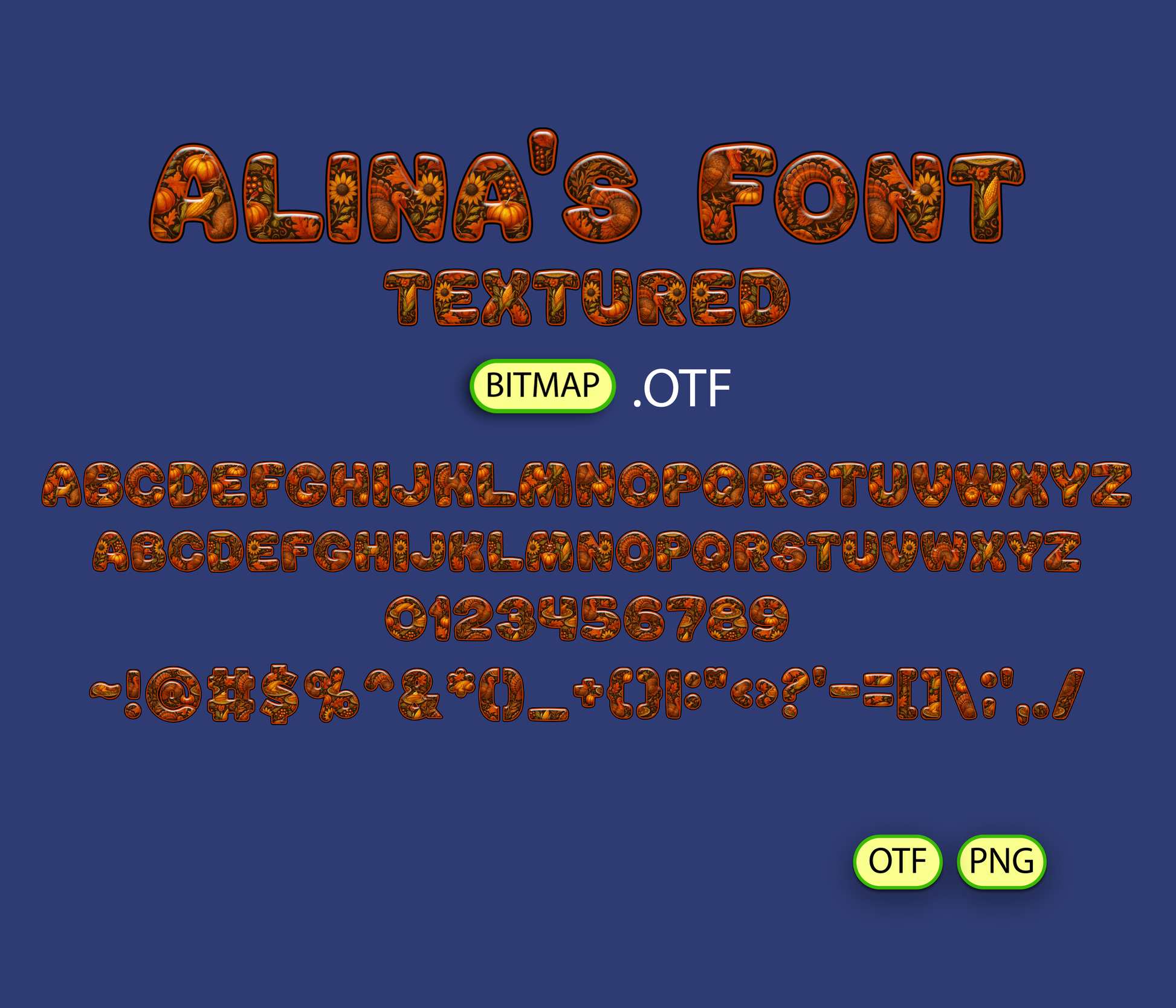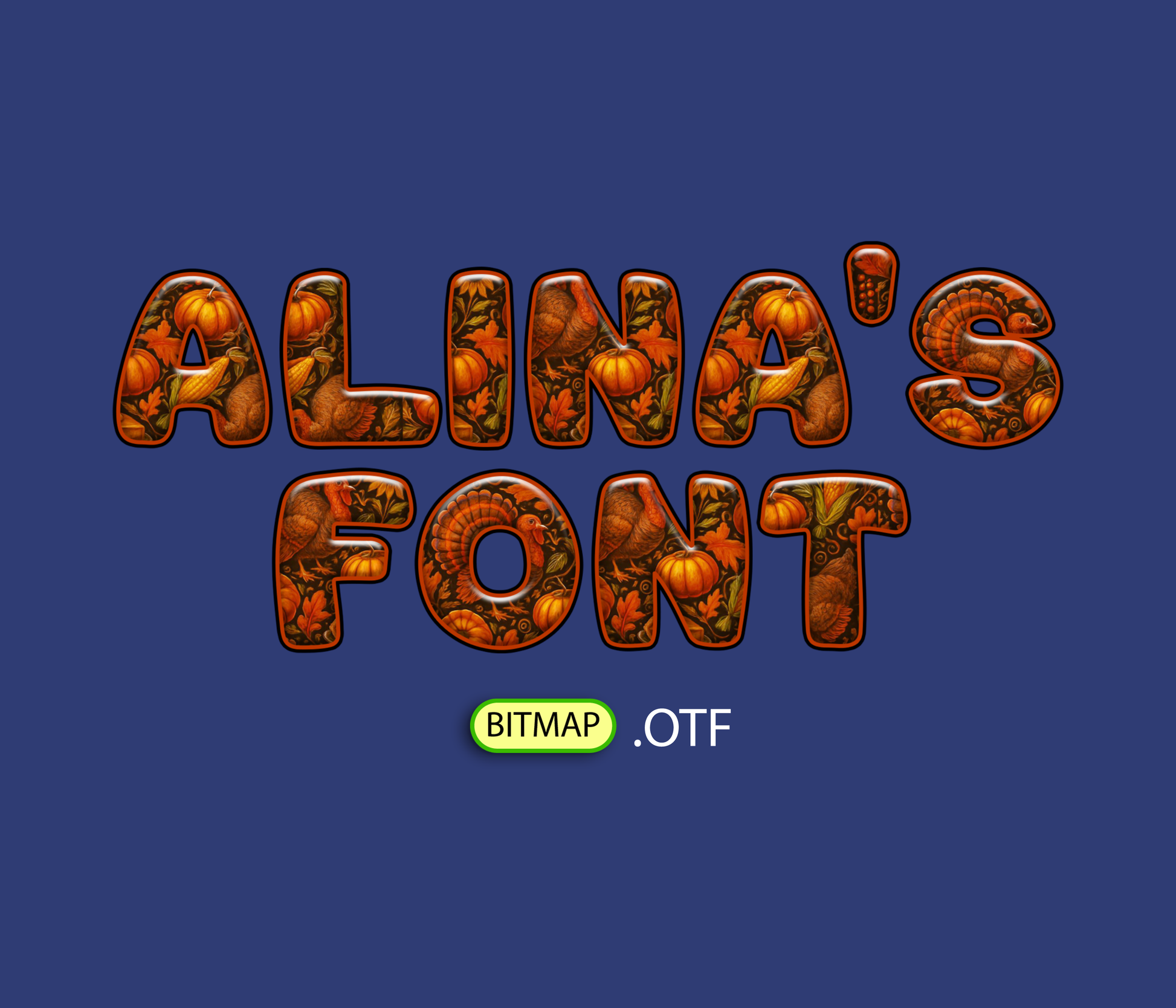
FREE Autumn Celebration Pattern Font
Autumn Celebration Typography Collection
Embrace the heartwarming spirit of Thanksgiving gatherings with our Autumn Feast Typeface, embodying the soul of seasonal harvests and cherished traditions. Designed for hospitality venues, celebration specialists, seasonal brands, and creative visionaries, this font channels the comforting, appreciative atmosphere of cranberry sauce and candlelit dinners into your design projects. Craft memorable displays, fall-themed merchandise, or digital platforms with the wholesome, festive character of wheat sheaves and maple foliage.
Our Autumn Feast Typeface showcases ornate, barnyard-inspired details and inviting letterforms that capture the homespun yet elegant essence of November celebrations. Perfect for:
- Culinary Establishments: Develop distinctive branding, seasonal menus, and marketing materials for country kitchens, pie shops, and Thanksgiving buffet services
- Seasonal Events: Outstanding for harvest festivals, gratitude ceremonies, and commemorative materials that honor family traditions and autumn abundance
- Web Design: Transform online presence, newsletter campaigns, and social media with cozy typography that radiates warmth and seasonal comfort
- Gift Industry: Incorporate authentic autumn flair into thankfulness journals, seasonal crafts, and promotional content for harvest-themed merchandise
- Creative Endeavors: Add Thanksgiving elegance to memory albums, handmade decorations, and interior projects inspired by colonial American aesthetics